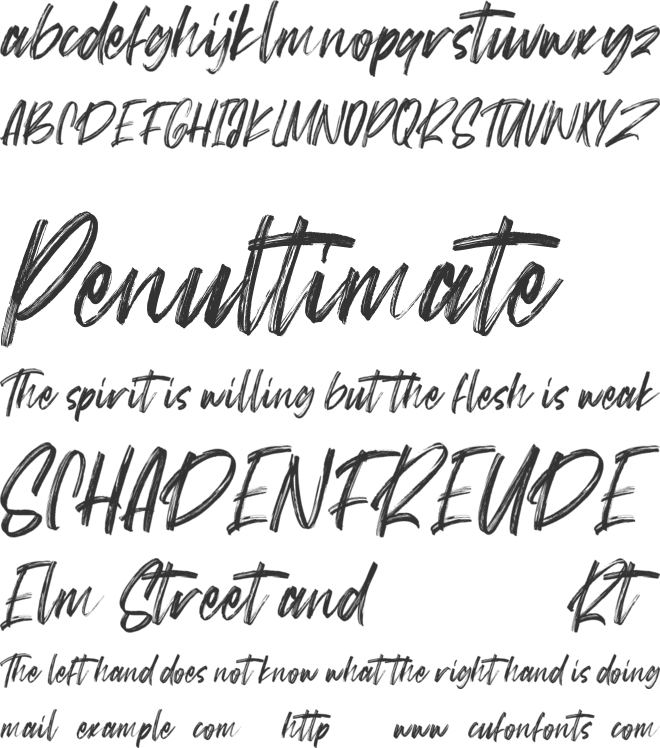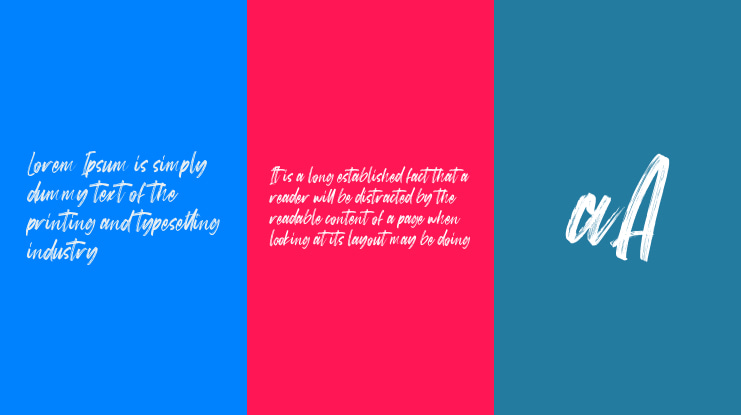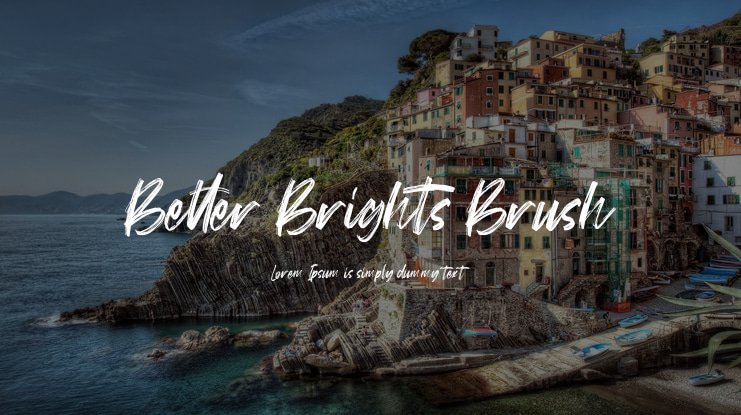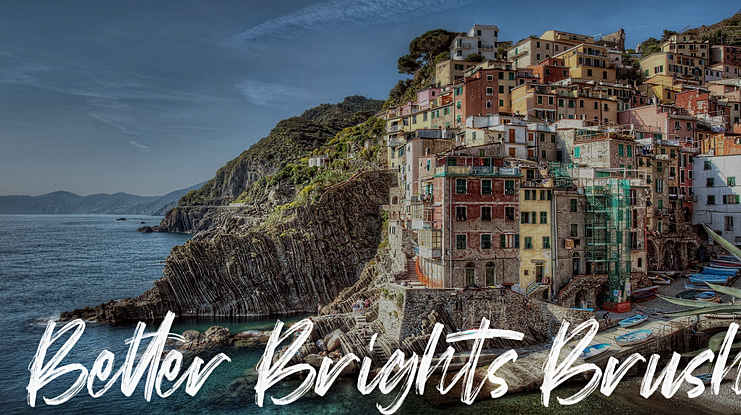
Better Brights Brush Font
It’s a textured brush typeface, a contemporary approach to design, handmade naturally with irregular base lines. It has Opentype features ligatures of character and end swash lowercase alternate, To give you an extra creative work. BetterBrights font support multilingual more than 100+ language. This font is good for logo design, Social media, Movie Titles, Books Titles, a short text even a long text letter and good for your secondary text font with sans or serif. Make a stunning work with Better Brights font.